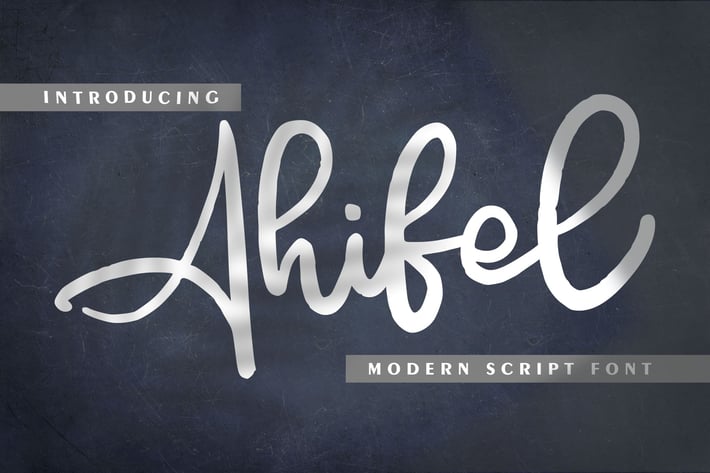
Ahifel | Modern Script Font
Ahifel | Modern Script Font with a calligraphy style, So beautiful on invitation like greeting cards, branding materials, business cards, quotes, posters, and more!